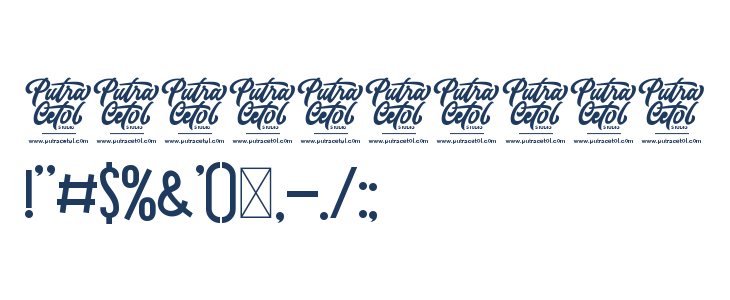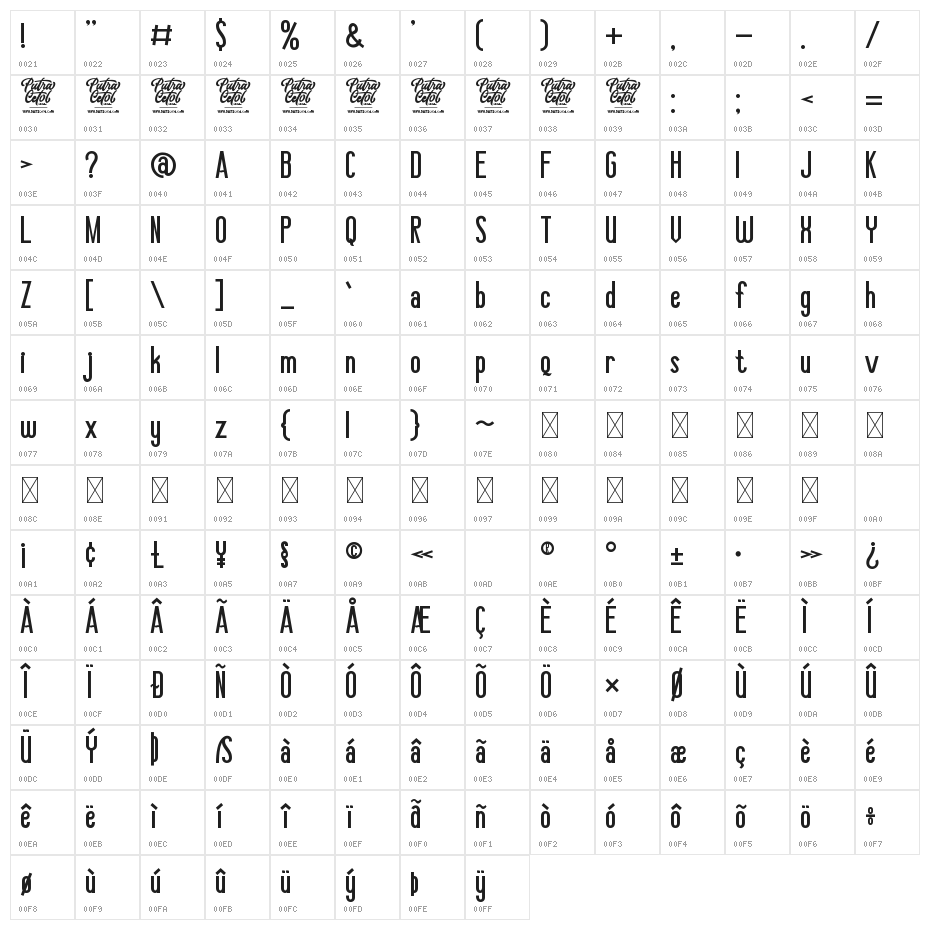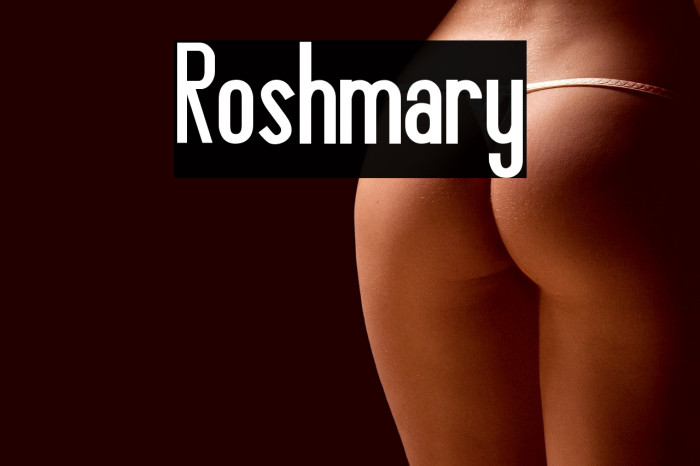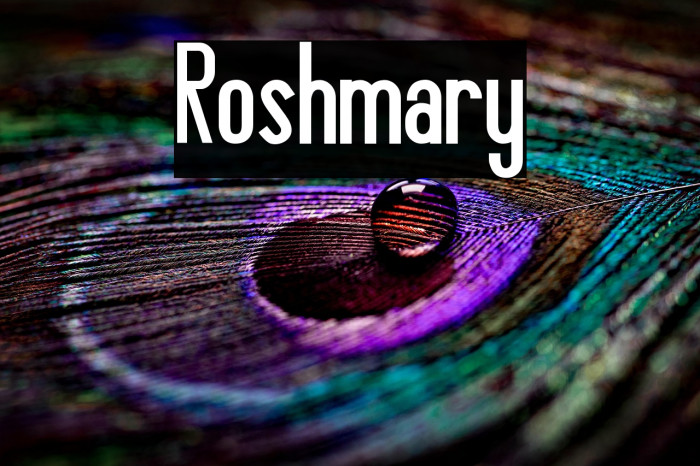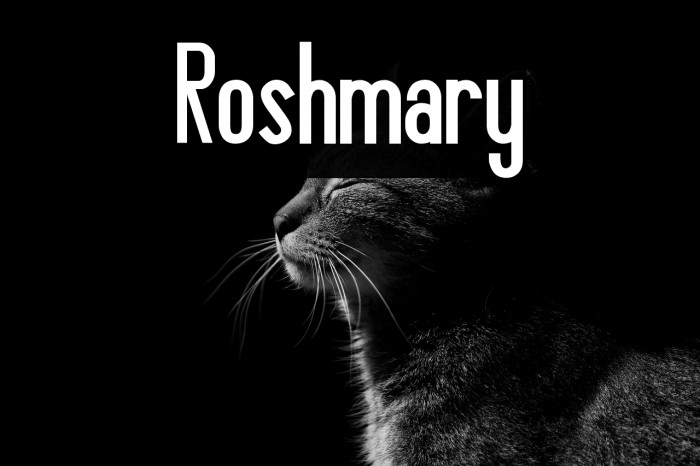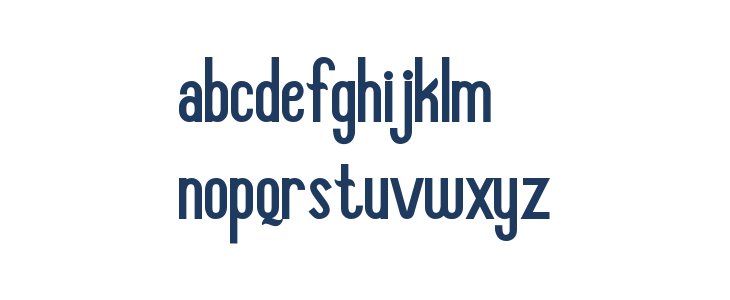
Roshmary Font
Roshmary Description
This font features a bold and modern design with clean, straight lines and a slightly condensed appearance. The uppercase letters are tall and narrow, giving a sleek and contemporary feel, while the lowercase letters maintain a consistent style with a touch of elegance. The font includes a full set of numerals and a variety of special characters, making it versatile for various design needs. Its uniform stroke width and minimal contrast create a cohesive and polished look, suitable for both digital and print media.
| Proposed Projects | Ideal for branding, advertising, headlines, and digital media projects. |